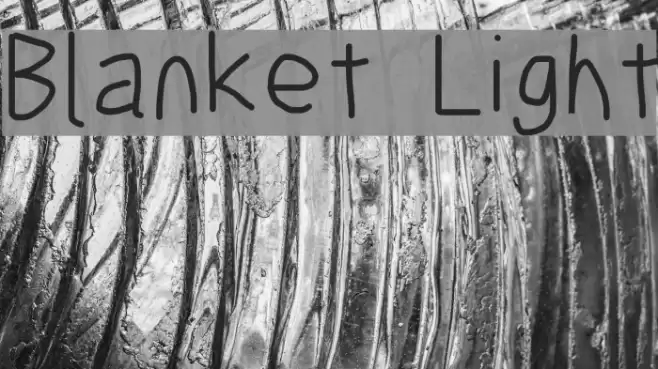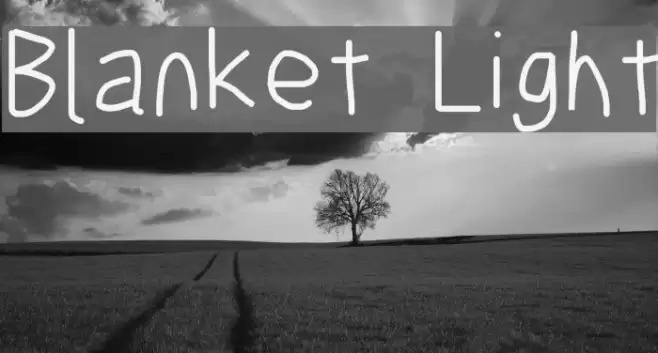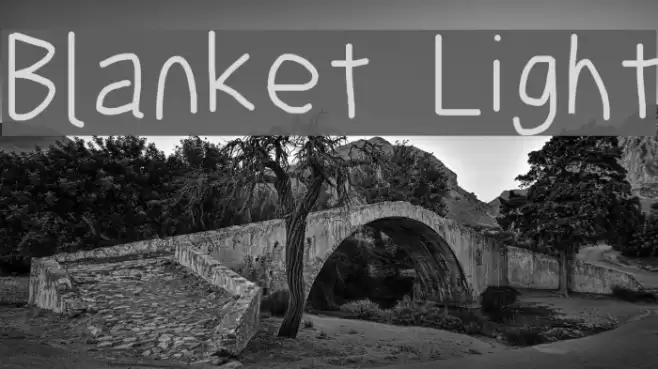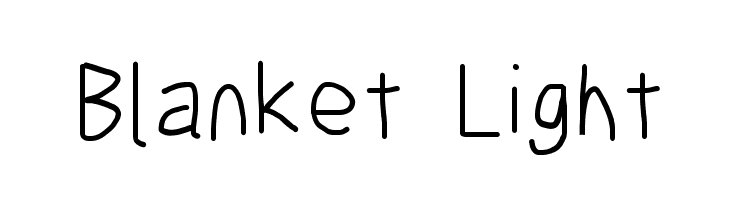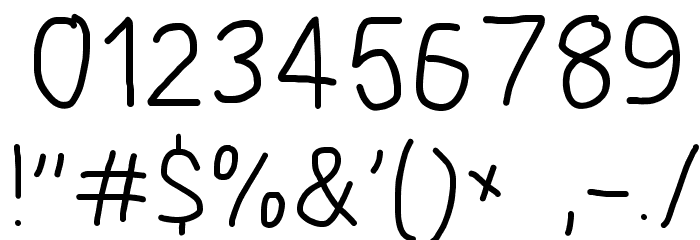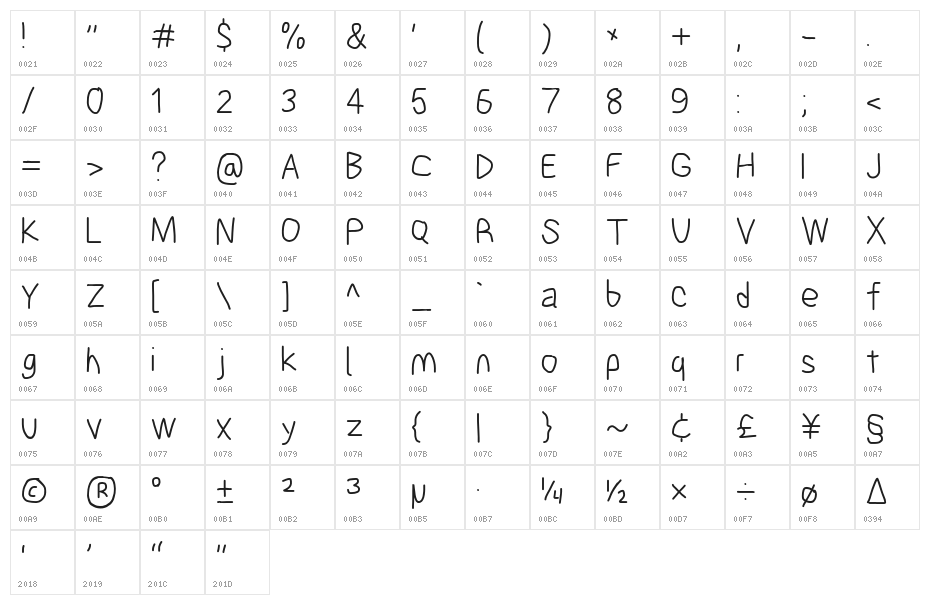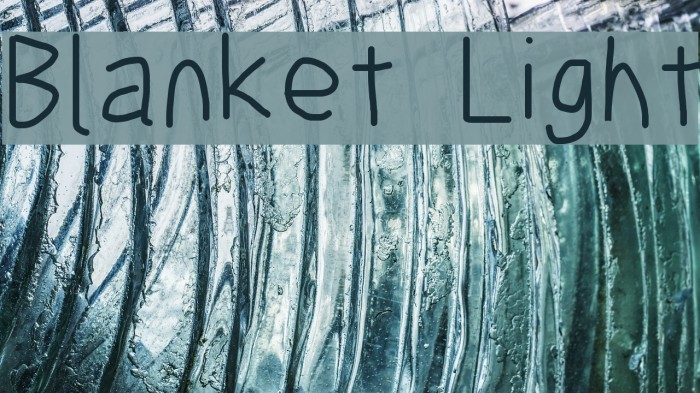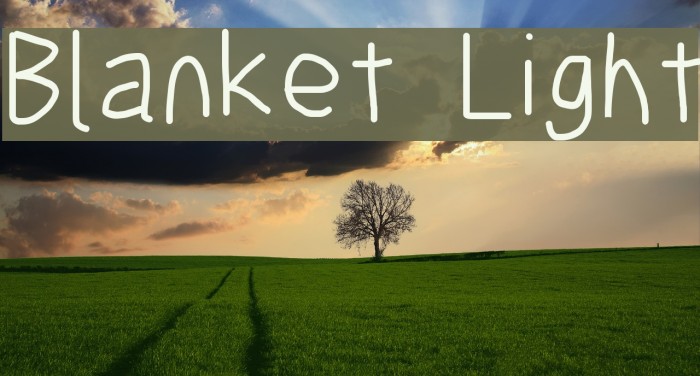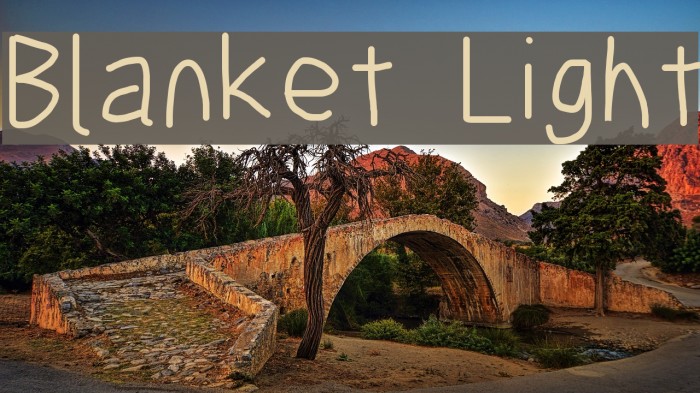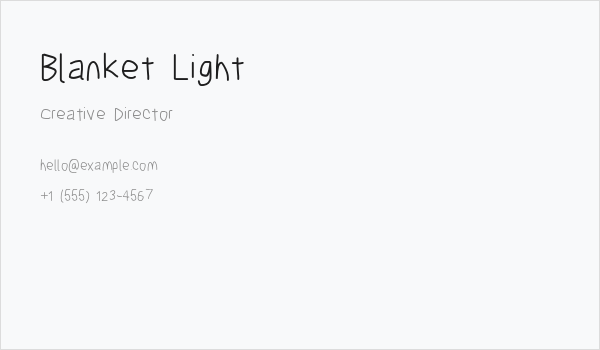
Blanket Light Font
Blanket Light Description
This font features a playful and casual handwritten style, characterized by its rounded and slightly irregular letterforms. The strokes are consistent in weight, giving it a uniform appearance while maintaining a friendly and approachable vibe. The uppercase and lowercase letters are well-balanced, with a slight tilt that adds to its informal charm. The numerals and special characters are designed to match the overall aesthetic, making it versatile for various applications. Its simplicity and clarity make it easy to read, while the unique hand-drawn quality adds personality.
A playful, handwritten font with rounded, consistent strokes and a casual vibe from Uncategorized fonts.
- Proposed Projects: Ideal for children's books, greeting cards, casual branding, and social media graphics.
- Overall Style: Casual
- Use Case: Headlines, Informal text, Branding